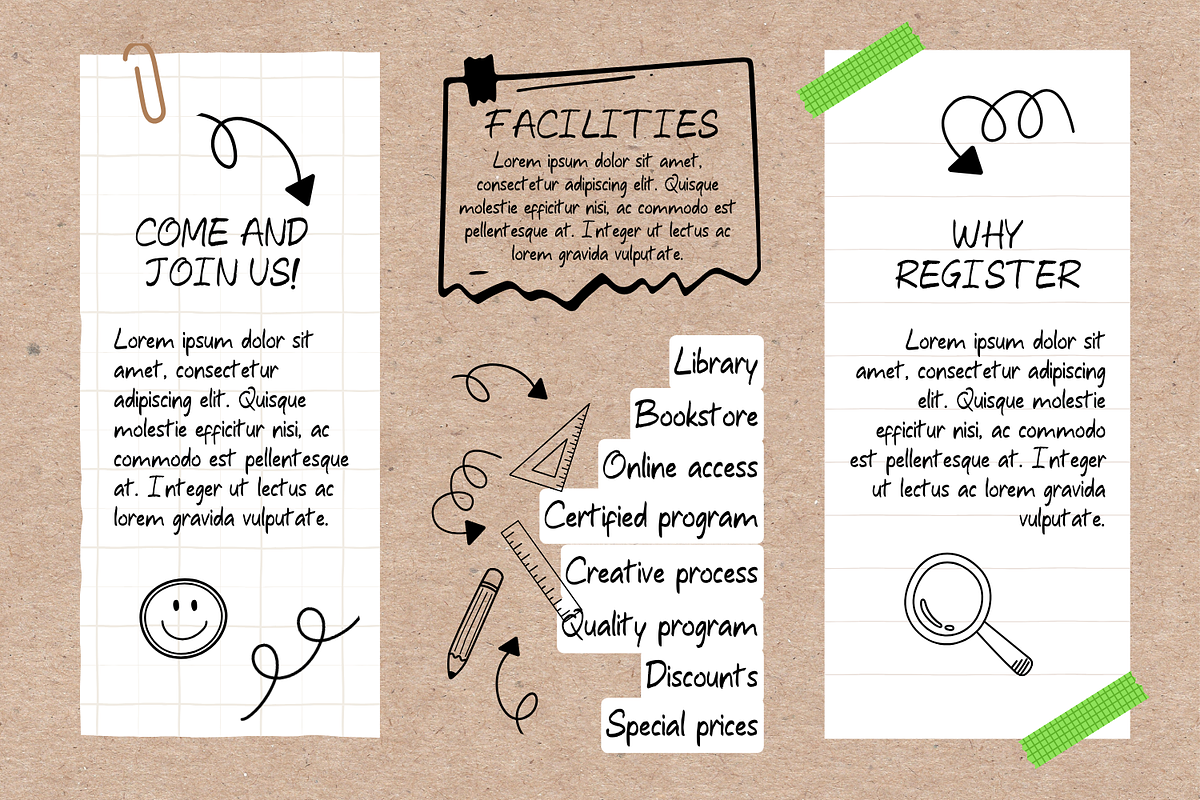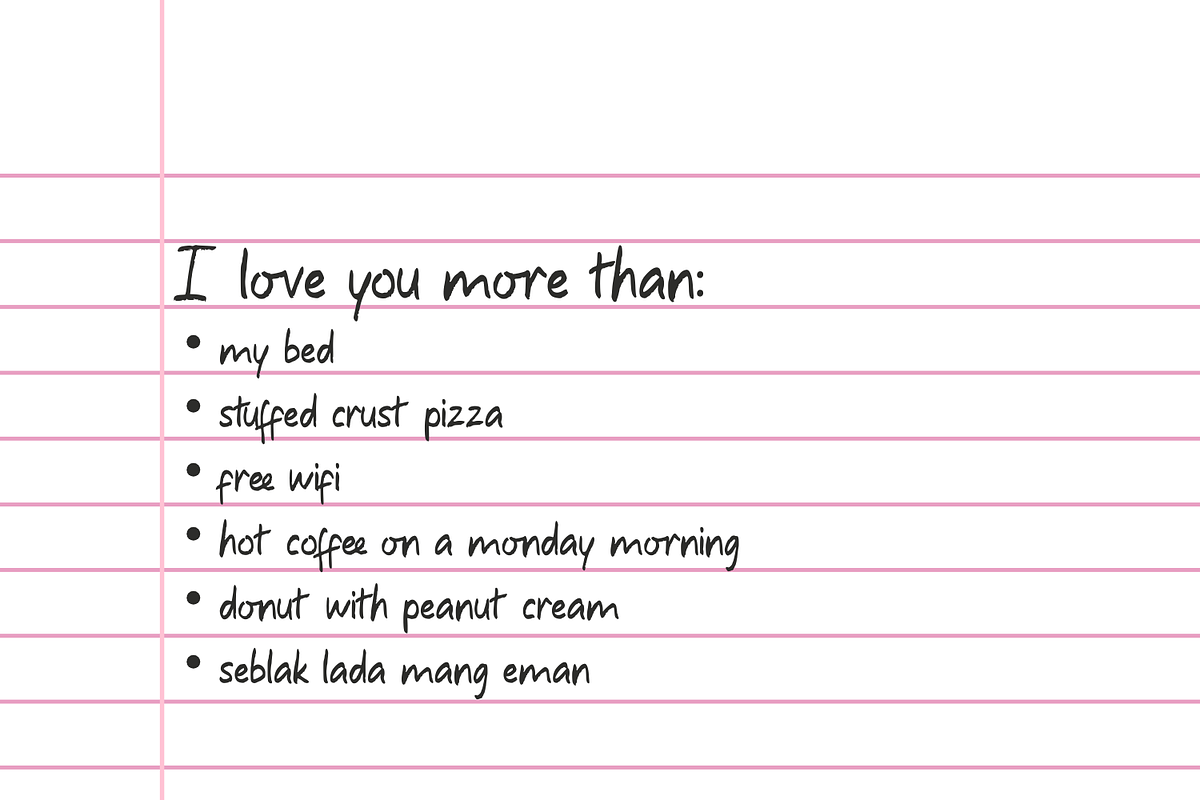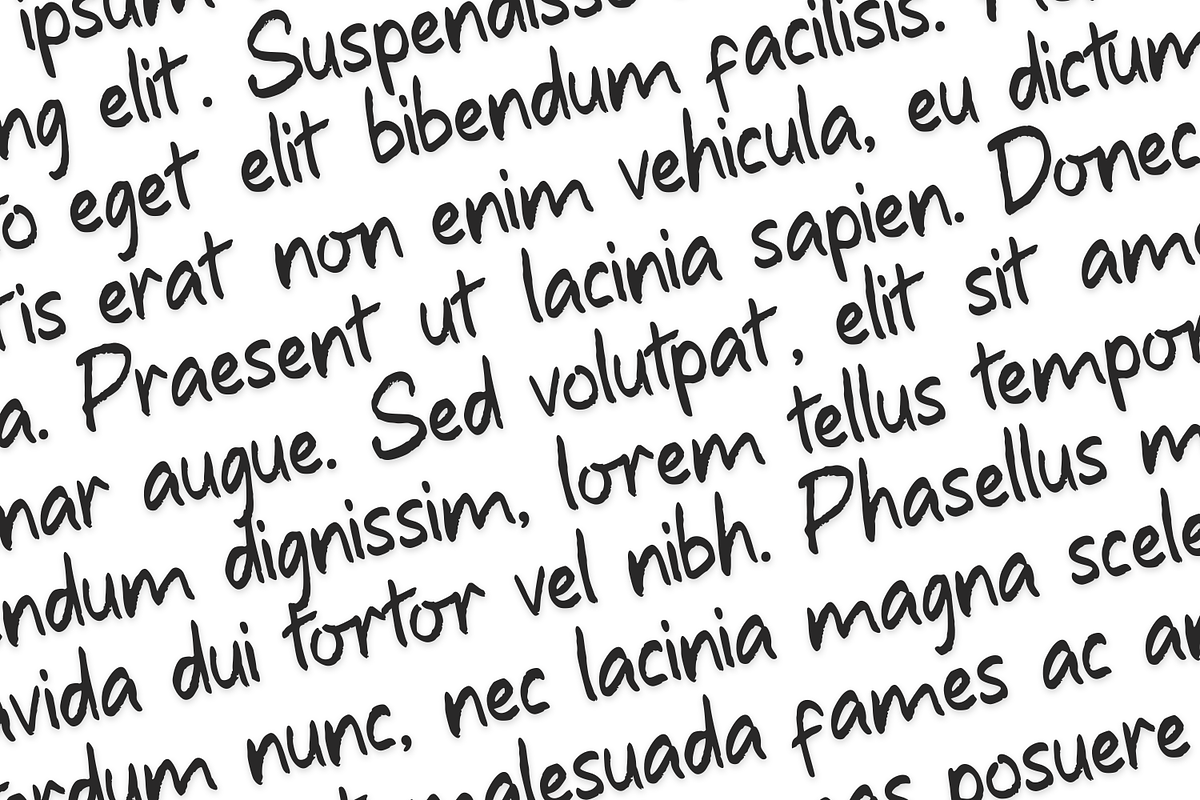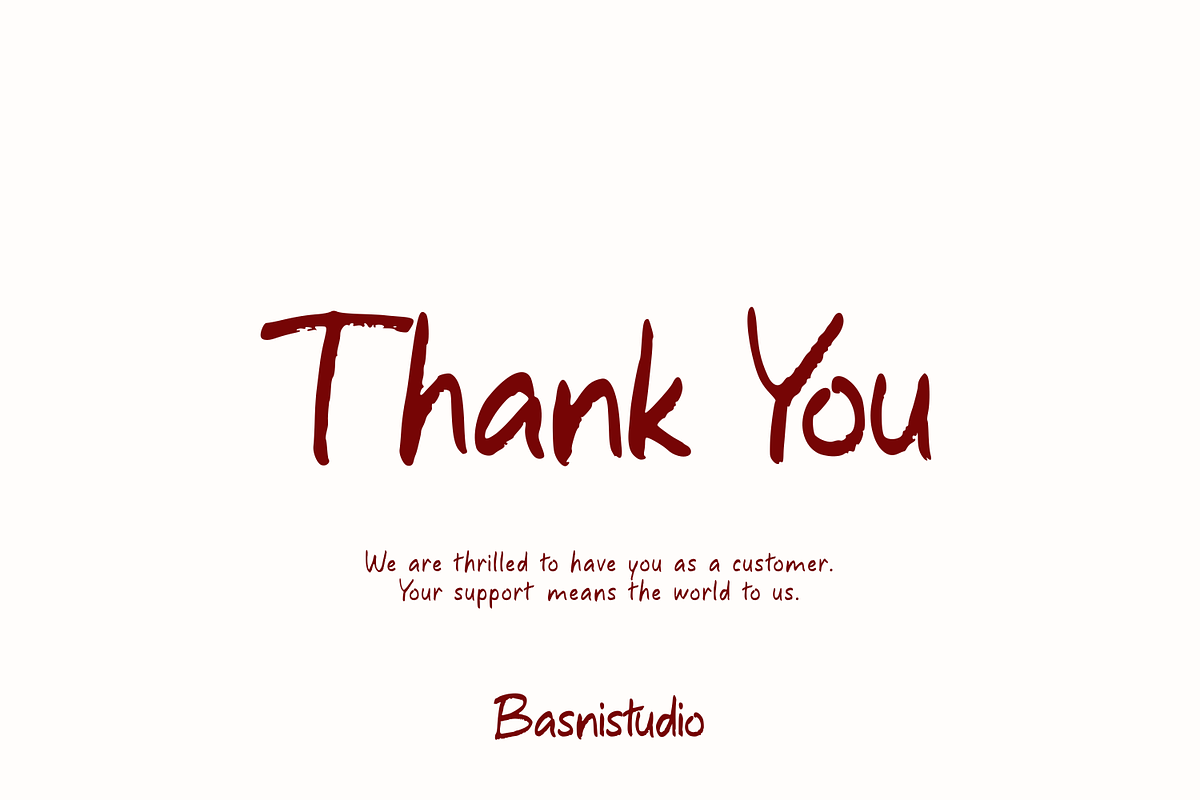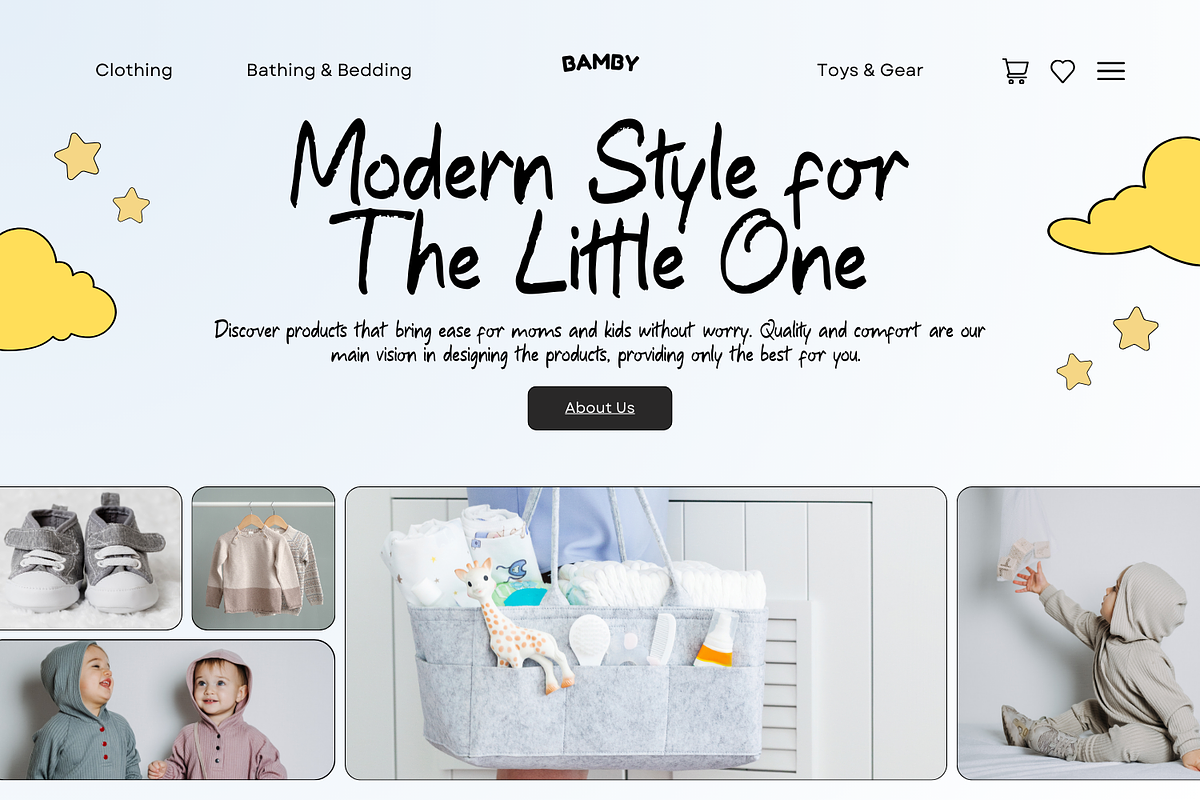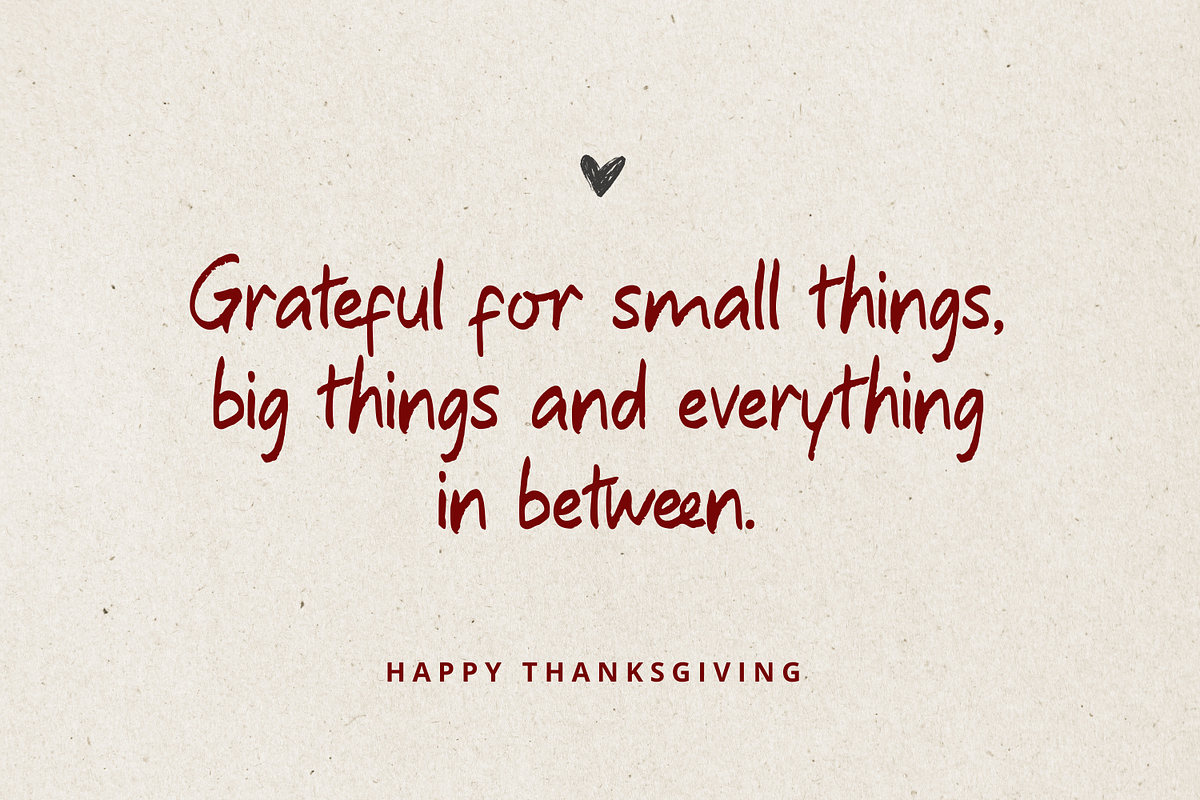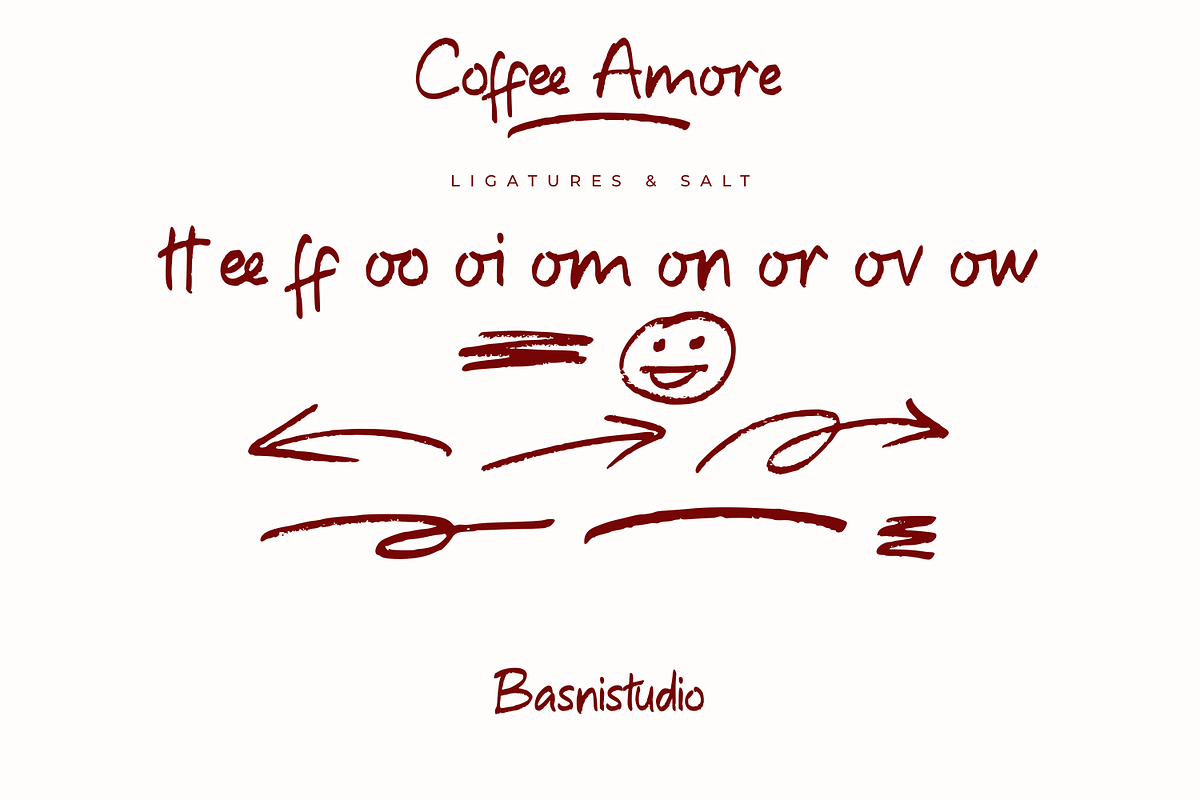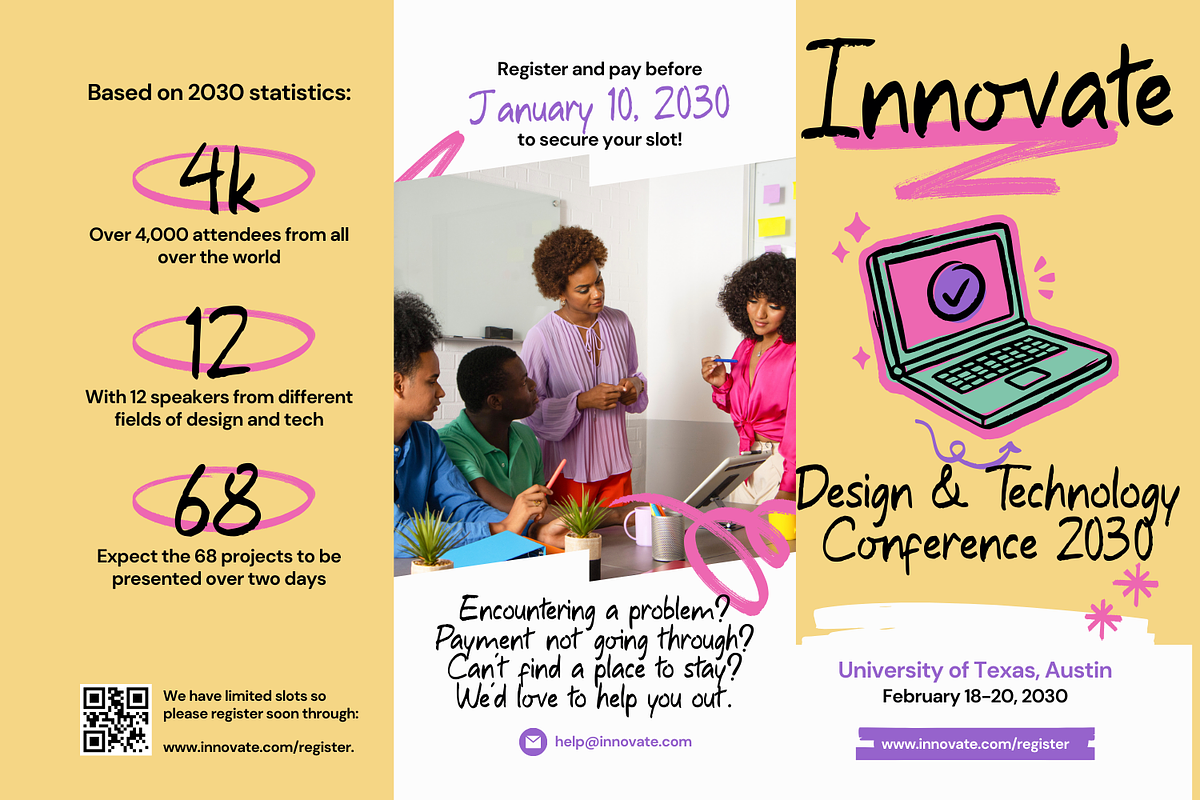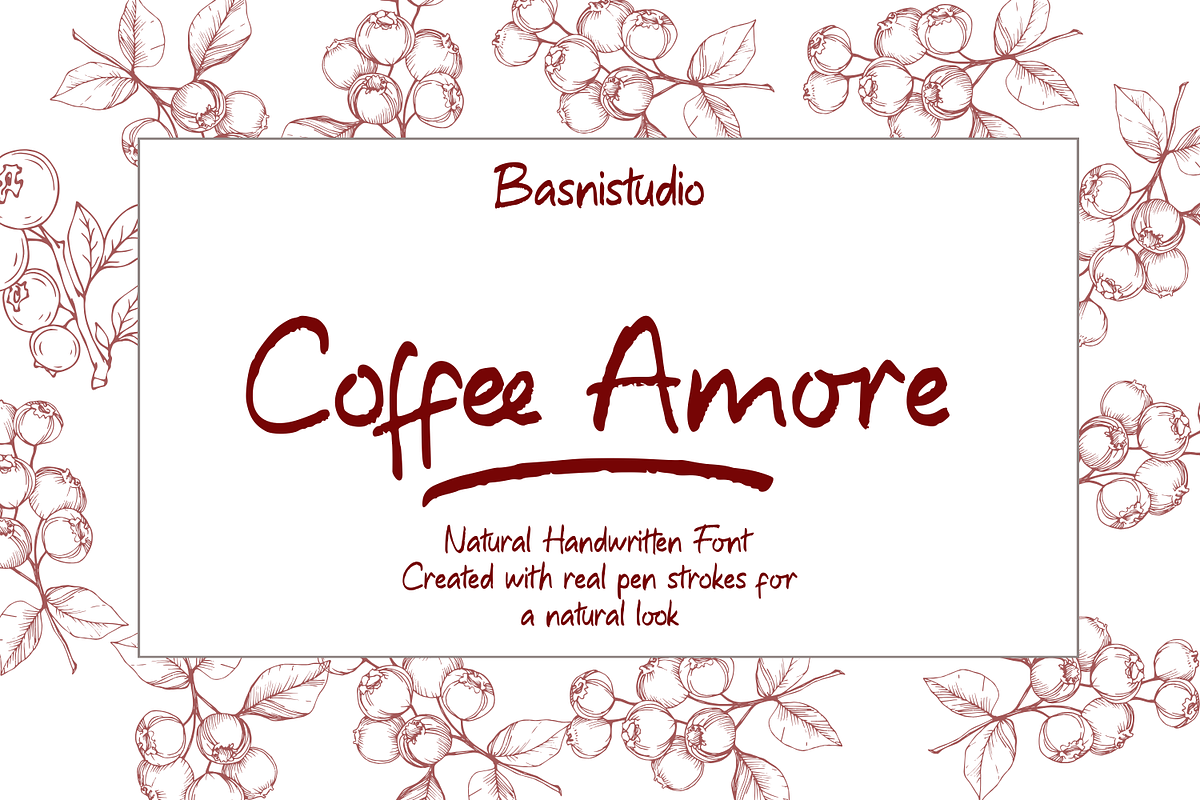
CoffeeAmore a Handwritting Font
The Perfect Handwritting Touch for Your Designs
Introducing CoffeeAmore a Handwritting Font Created with real pen strokes for a natural look and casual touch to everything from branding and social media to invitations and packaging.
Natural & Casual – Perfect for logos, quotes, greeting cards, and more Authentic Handwritten Feel – Created with real pen strokes for a natural look Easy to Use – Works seamlessly with all major design programs
Whether you're building a powerful brand identity or crafting a standout logo,
CoffeeAmore a Handwritting Font Created with real pen strokes for a natural look gives you the creative edge you need.
Uppercase & lowercase letters Ligature & bonus vector Numbers & punctuation Multilingual Support ( Support for 90 languages )